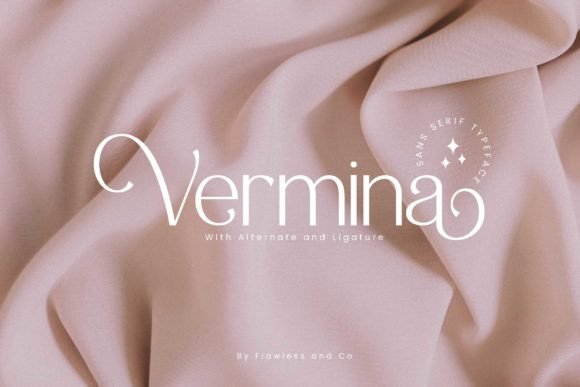
Are you looking for the perfect font to elevate your modern app or design project? Look no further than Vermina Font, created by Flawless And Co.
Vermina is a beautifully crafted Sans-Serif font that will add a touch of elegance to any design. Its unique features, including ligatures and alternates, make it an ideal choice for creating eye-catching headlines, logos, branding, posters, and more.
This font is not only aesthetically pleasing, but also functional. Vermina is a versatile font that is perfect for any modern app, allowing you to create a cohesive and professional look that will impress your users.
With Vermina, you can take your design to the next level. Its sleek and modern design will capture the attention of your audience and leave a lasting impression. Whether you're creating a new app, designing a poster, or building a brand, Vermina is the perfect font for the job.